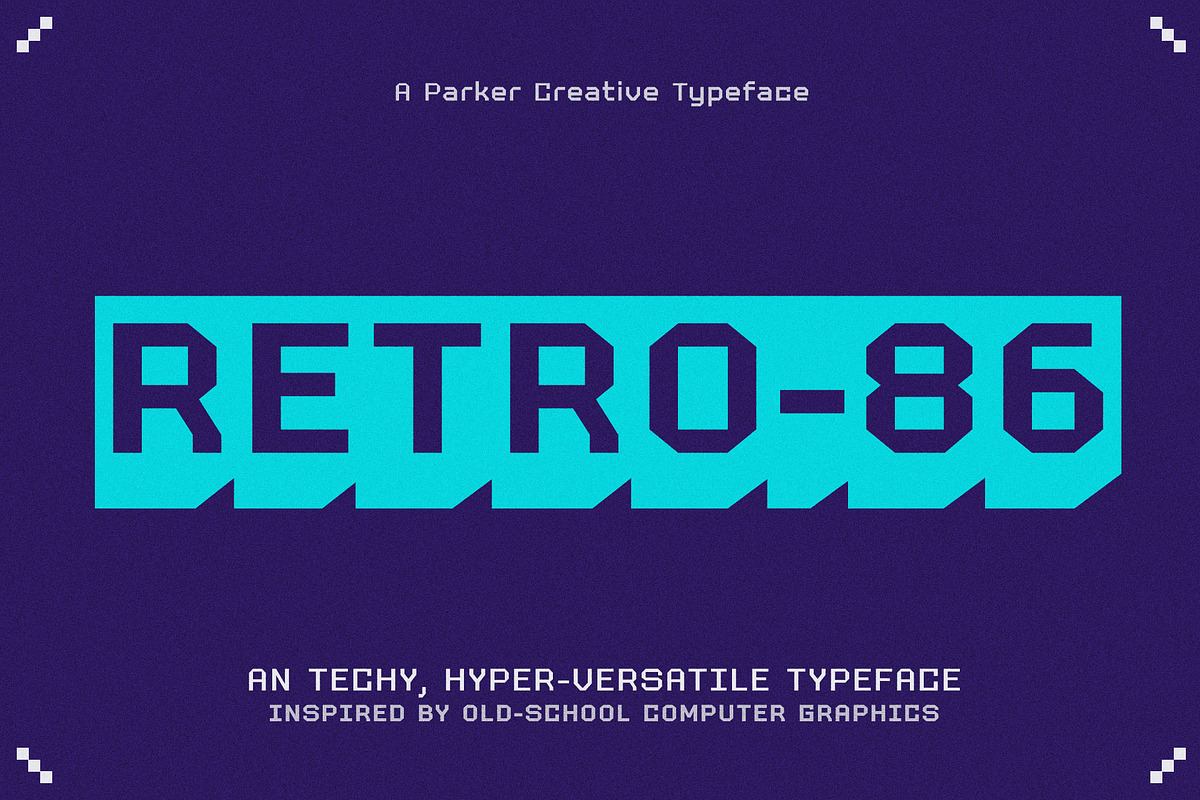
Retro 86 Old School Computer Font Free Download is a nostalgic typeface inspired by vintage computer systems and pixelated displays from the 1980s. With its blocky, pixel-like style, this font is perfect for projects that evoke a sense of retro computing, technology, or digital nostalgia.
Ideal for video game logos, retro tech branding, album covers, and social media graphics with a vintage twist, Retro 86 Old School Computer Font Free Download brings the feel of the 80s digital era to life with every letter. It works especially well for designs that need to reflect the early days of personal computers and pixel art.
Revive the past with Retro 86 Old School Computer Font Free Download and create designs that speak to the golden age of computing. Perfect for designers looking to add vintage tech flair to their work.